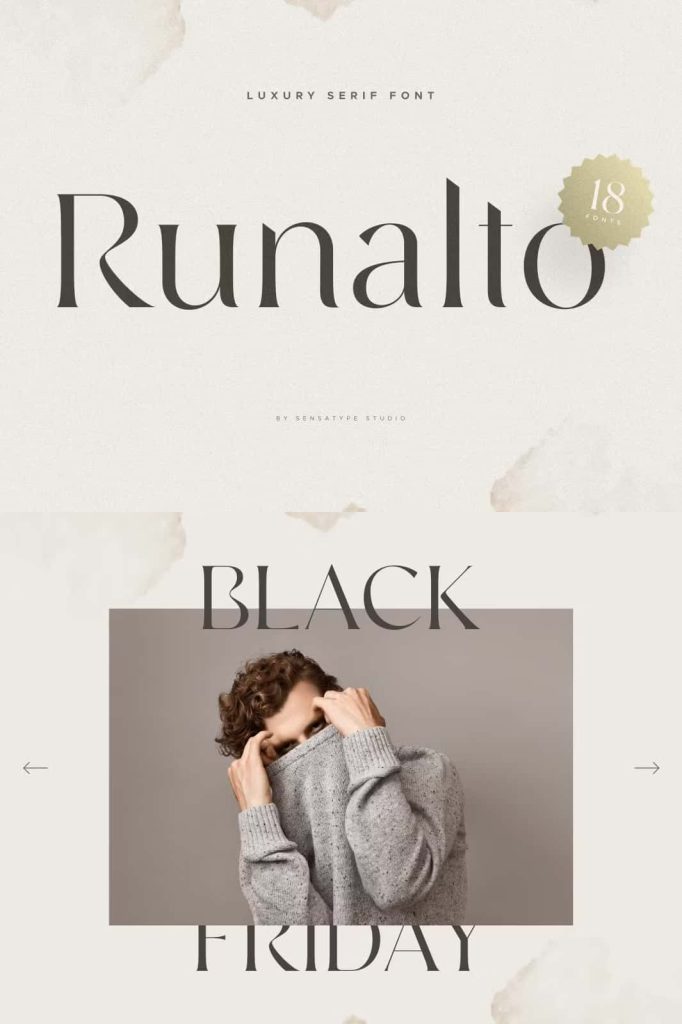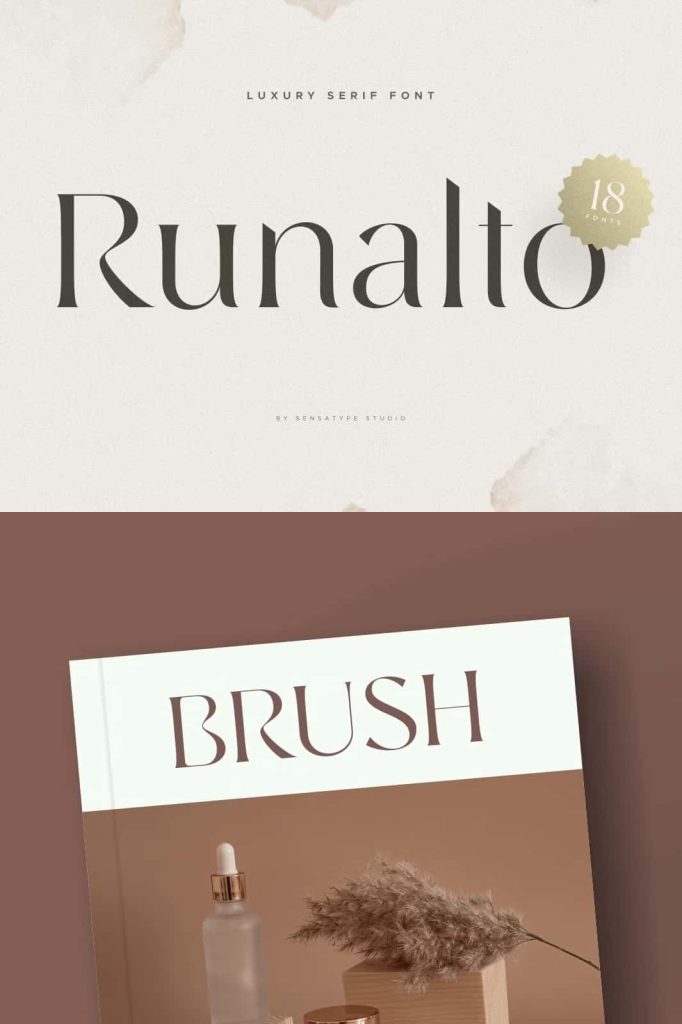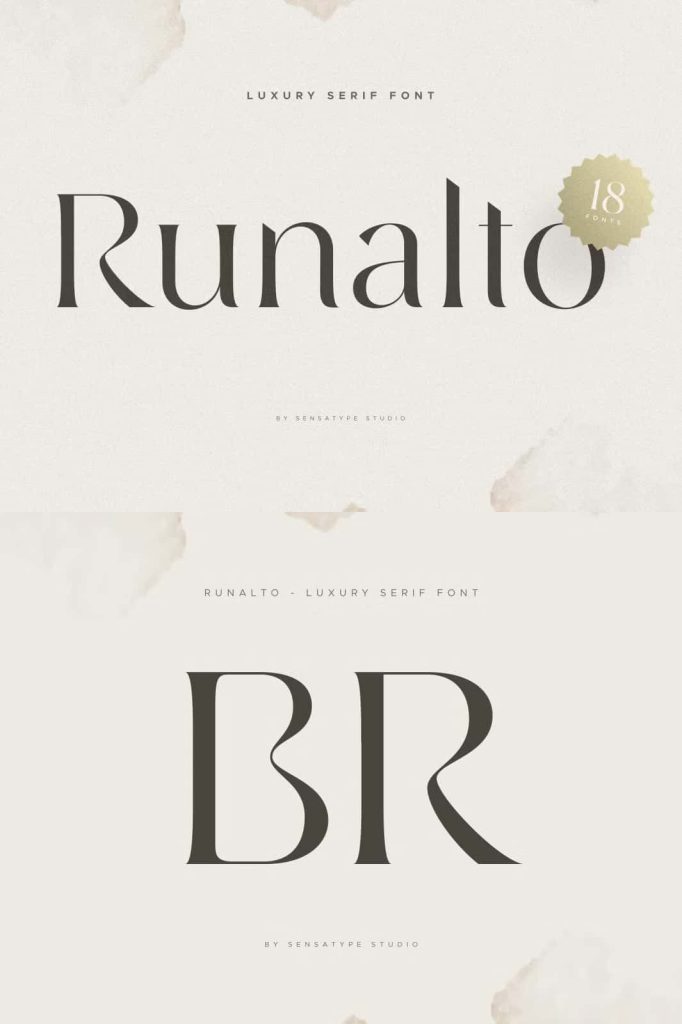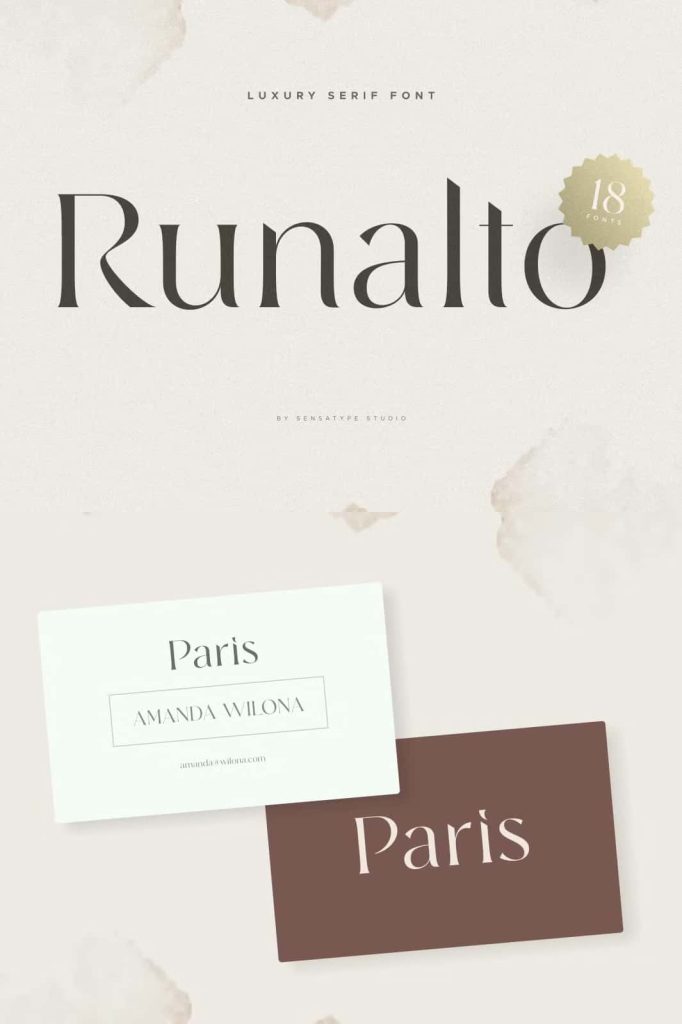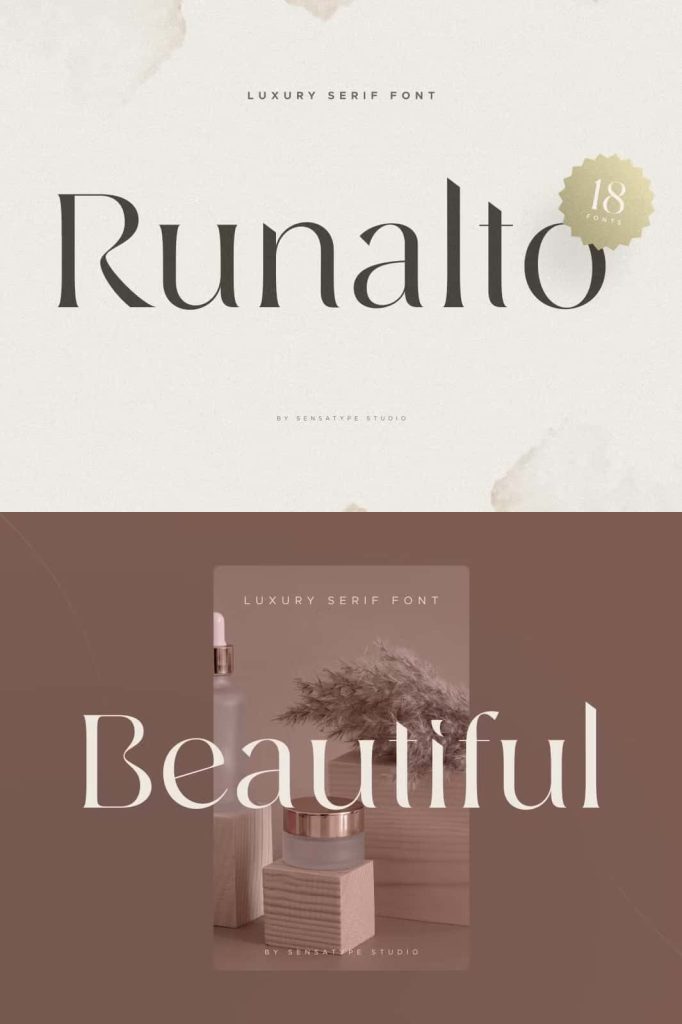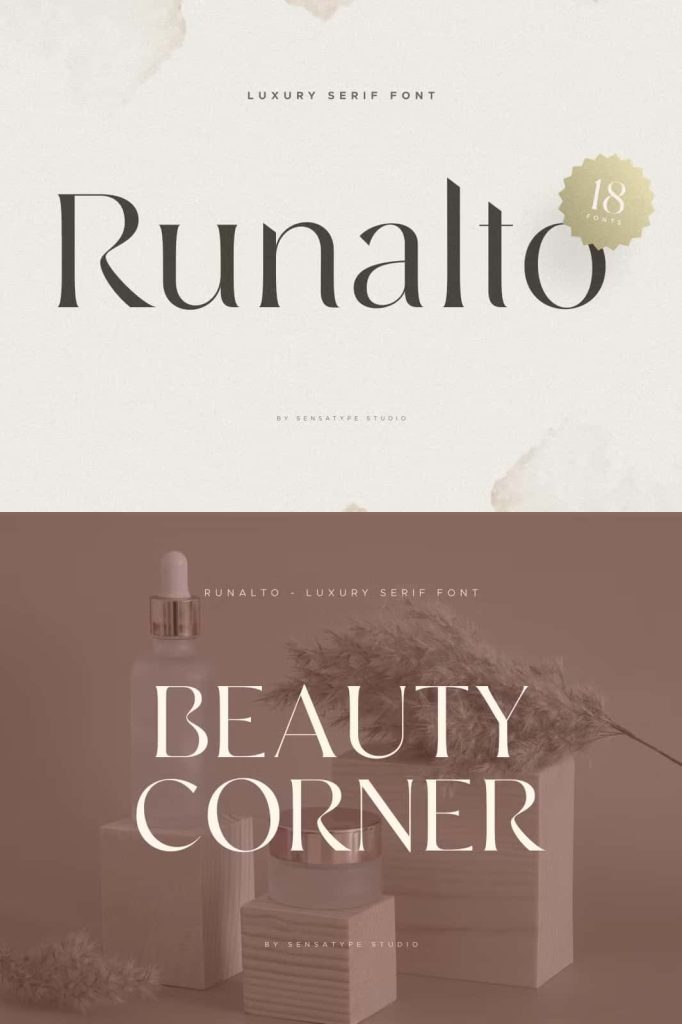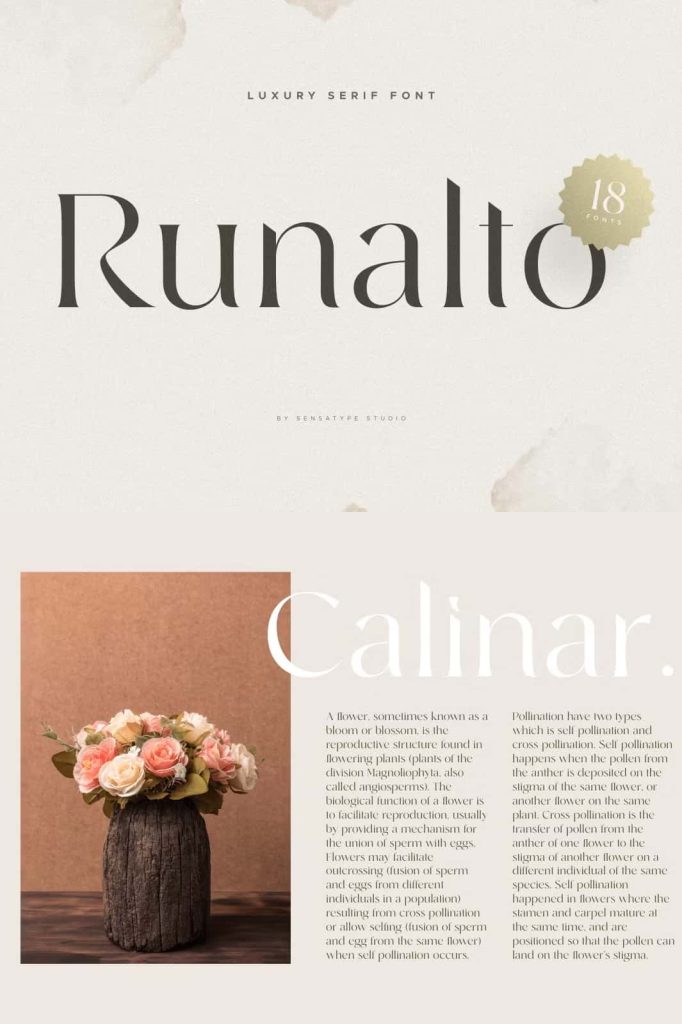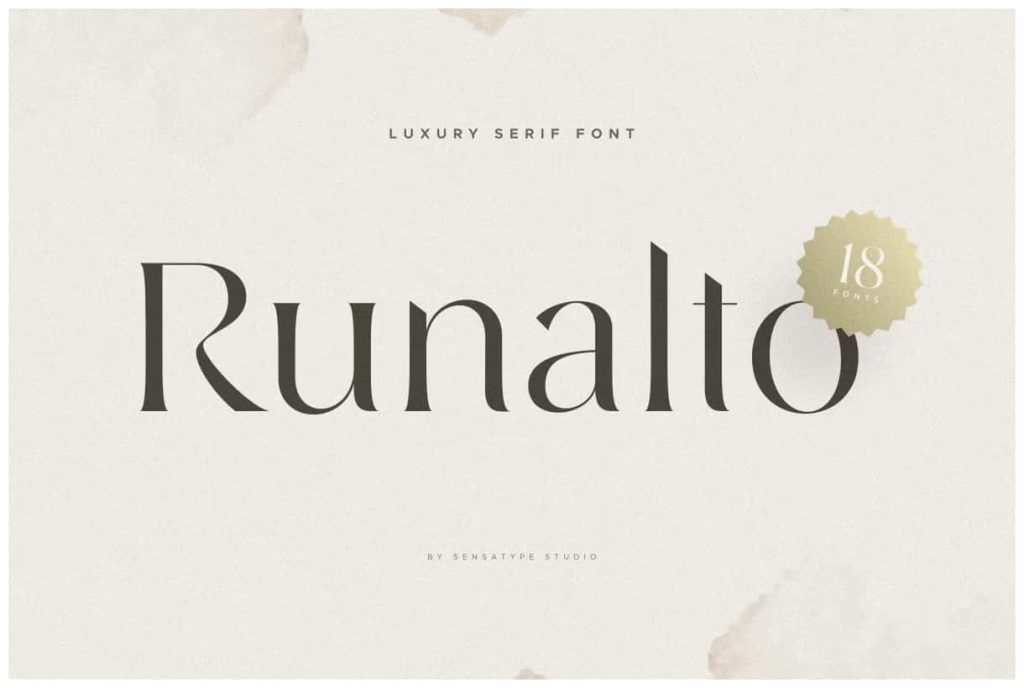
Runalto – 18 Fonts Luxury Serif FontleastedMarch 2, 2025Fonts Runalto is a display serif font with luxury, elegant, modern, unique and classy-look. Download